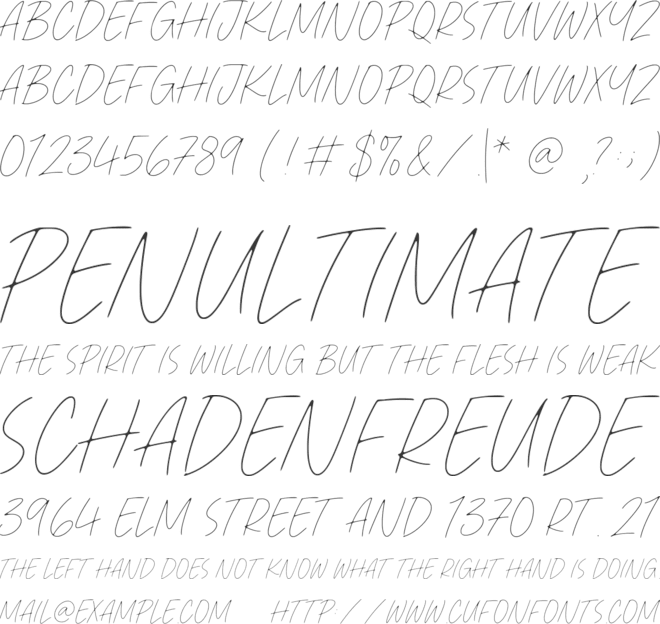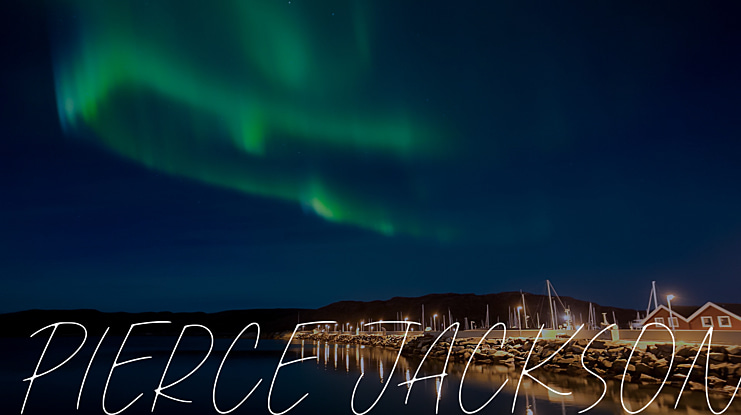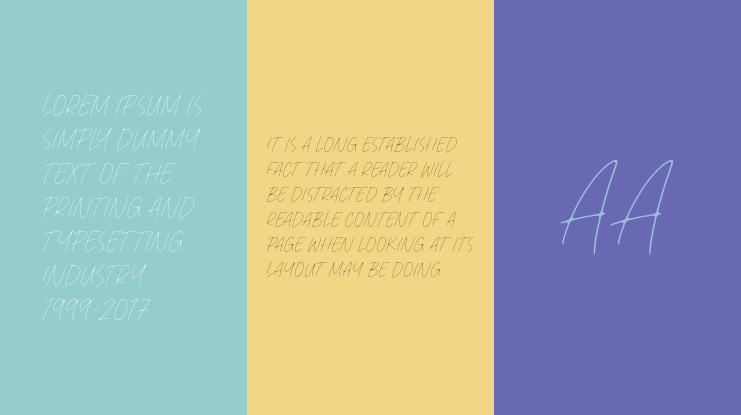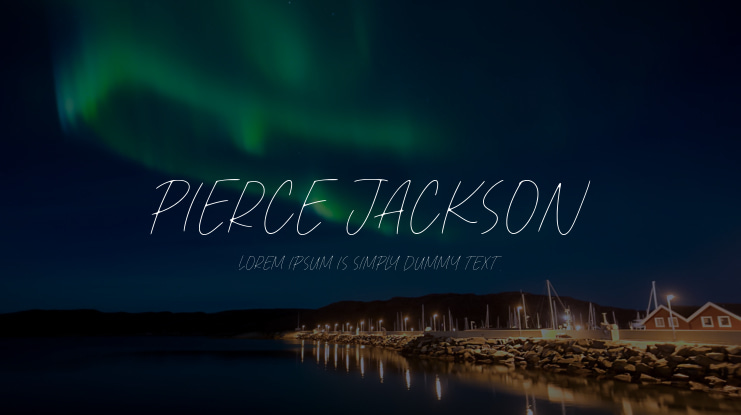
Pierce Jackson Font
Introducing by Balpirick Studio.
Pierce Jackson is a Handbrushed Font.
Whether you’re using it for crafts, digital design, presentations, or making greeting cards, this font has the potential to become your favorite go-to font, no matter the occasion!
This font only has allcaps letters.